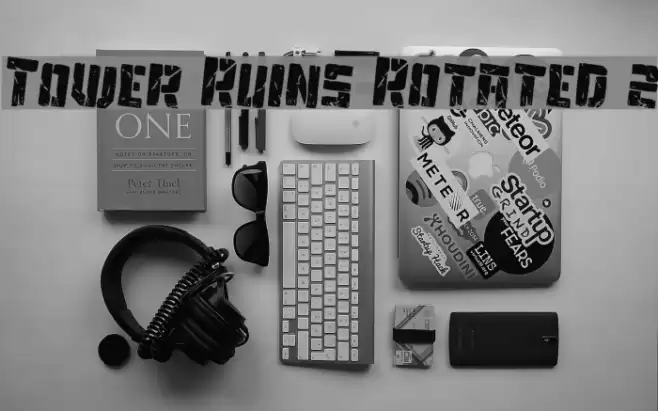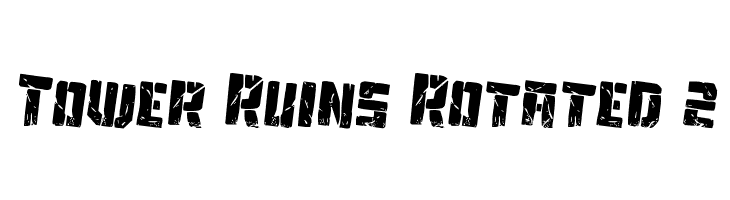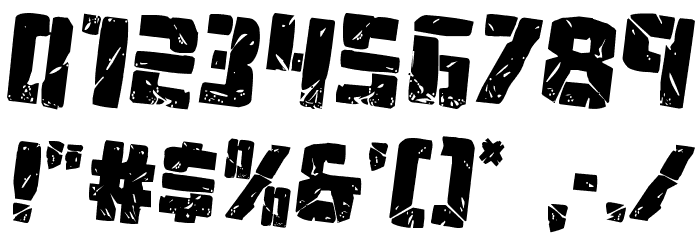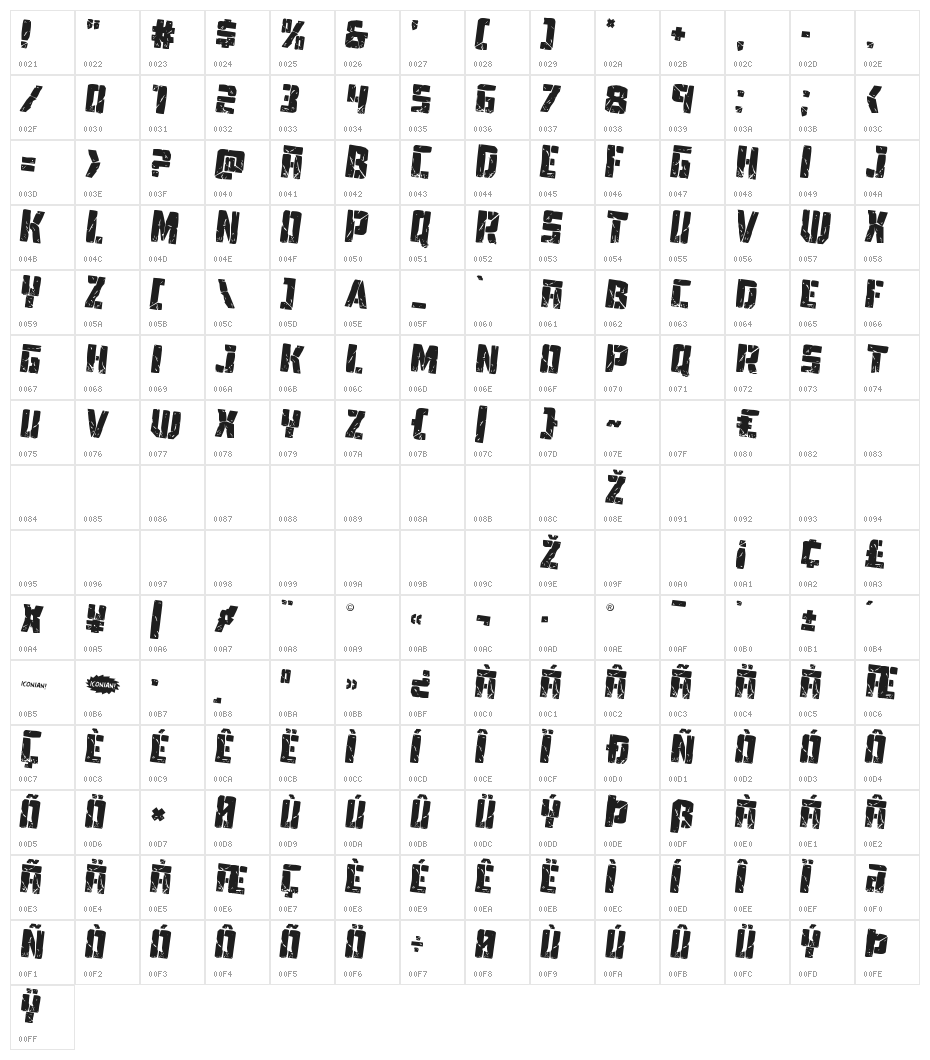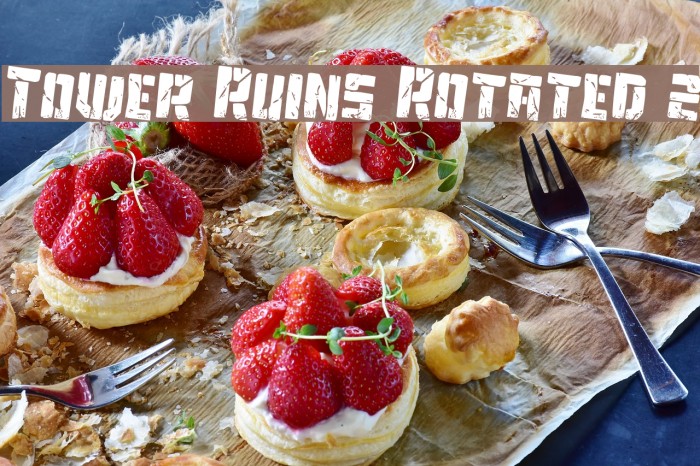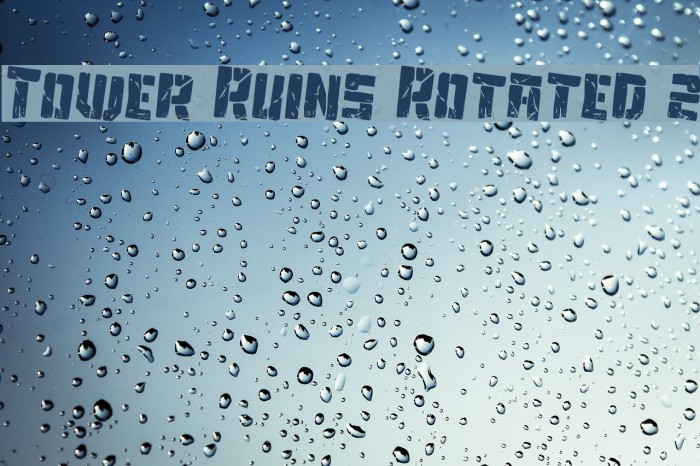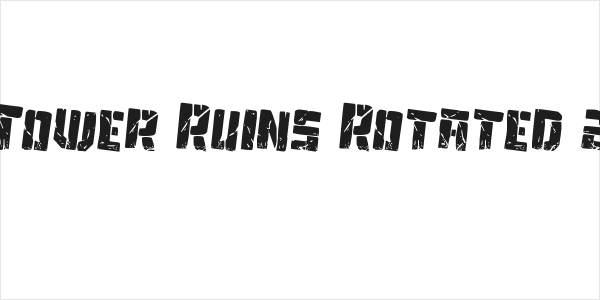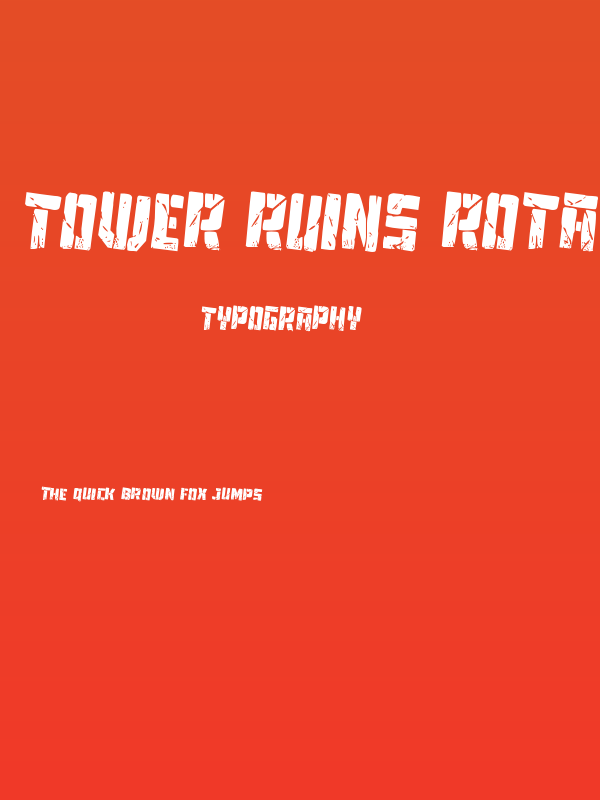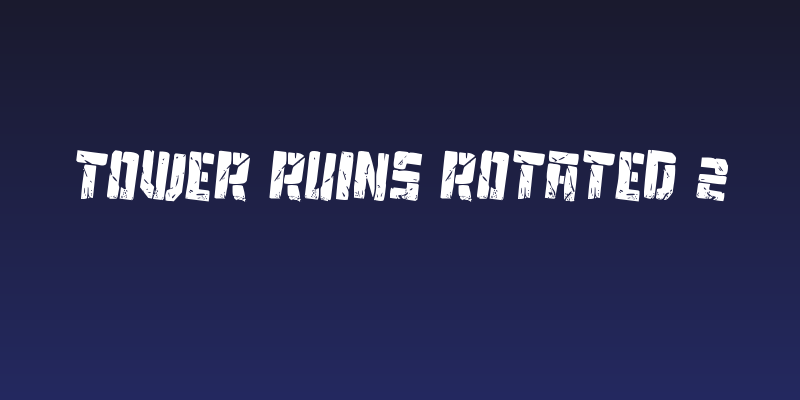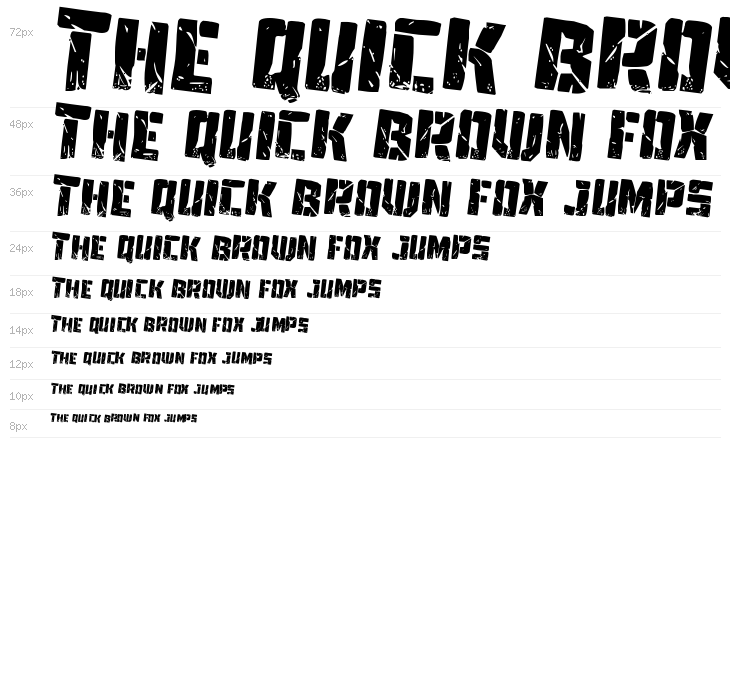
Tower Ruins Rotated 2 Font
Tower Ruins Rotated 2 Description
This font features a bold, distressed style with a rugged, textured appearance that mimics the look of weathered ruins. The characters are blocky and angular, with irregular edges and a rough, eroded texture that gives them a unique, aged look. This design is reminiscent of ancient stone carvings or graffiti, making it ideal for projects that require a gritty, urban, or historical feel. The uppercase and lowercase letters maintain a consistent style, with numerals and special characters following the same distressed theme. The overall effect is striking and eye-catching, perfect for making a bold statement.
A bold, distressed font with a rugged, textured appearance from Fancy fonts.
- Proposed Projects: Ideal for posters, album covers, video game titles, or any project needing a gritty, urban aesthetic.